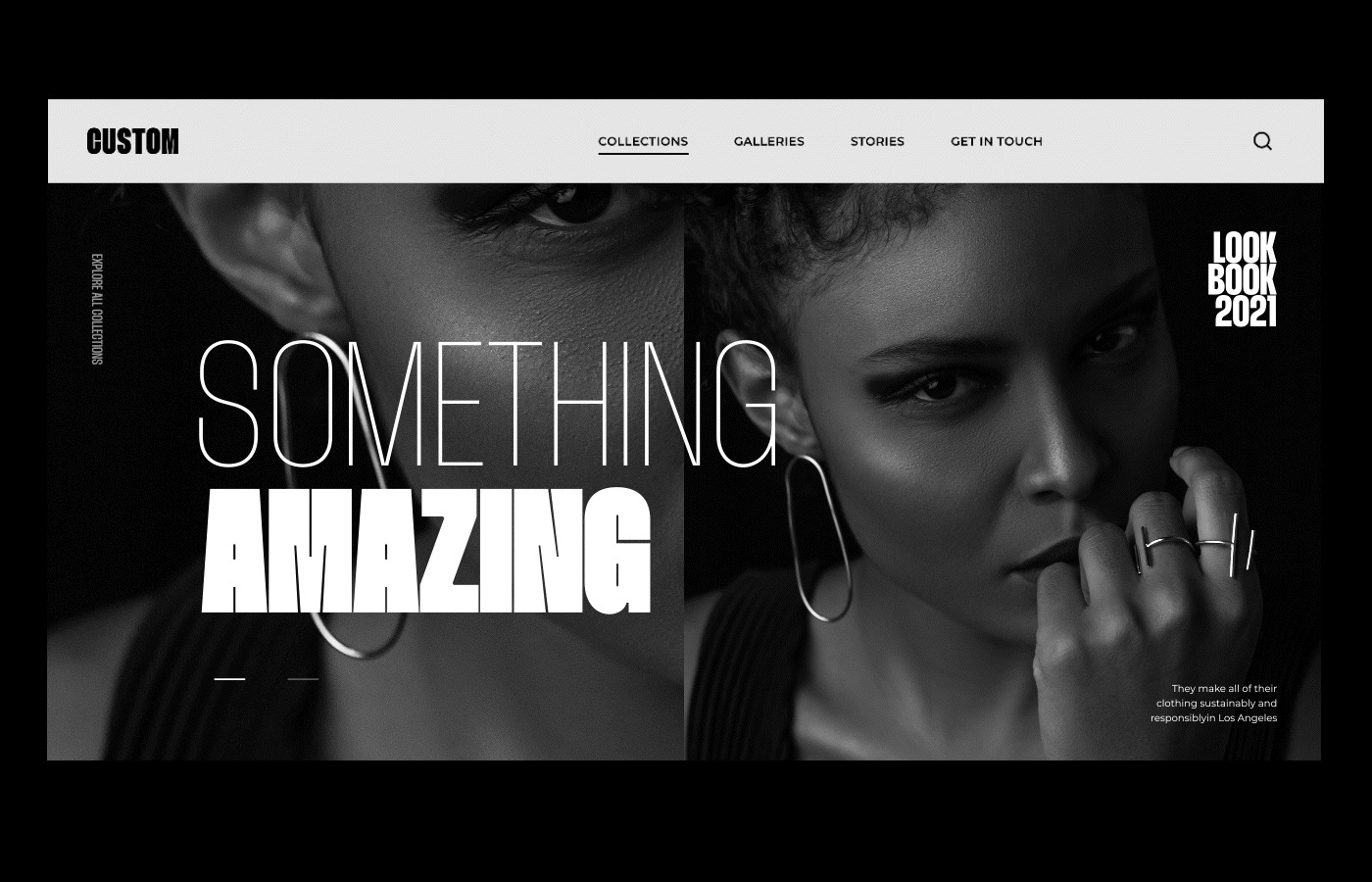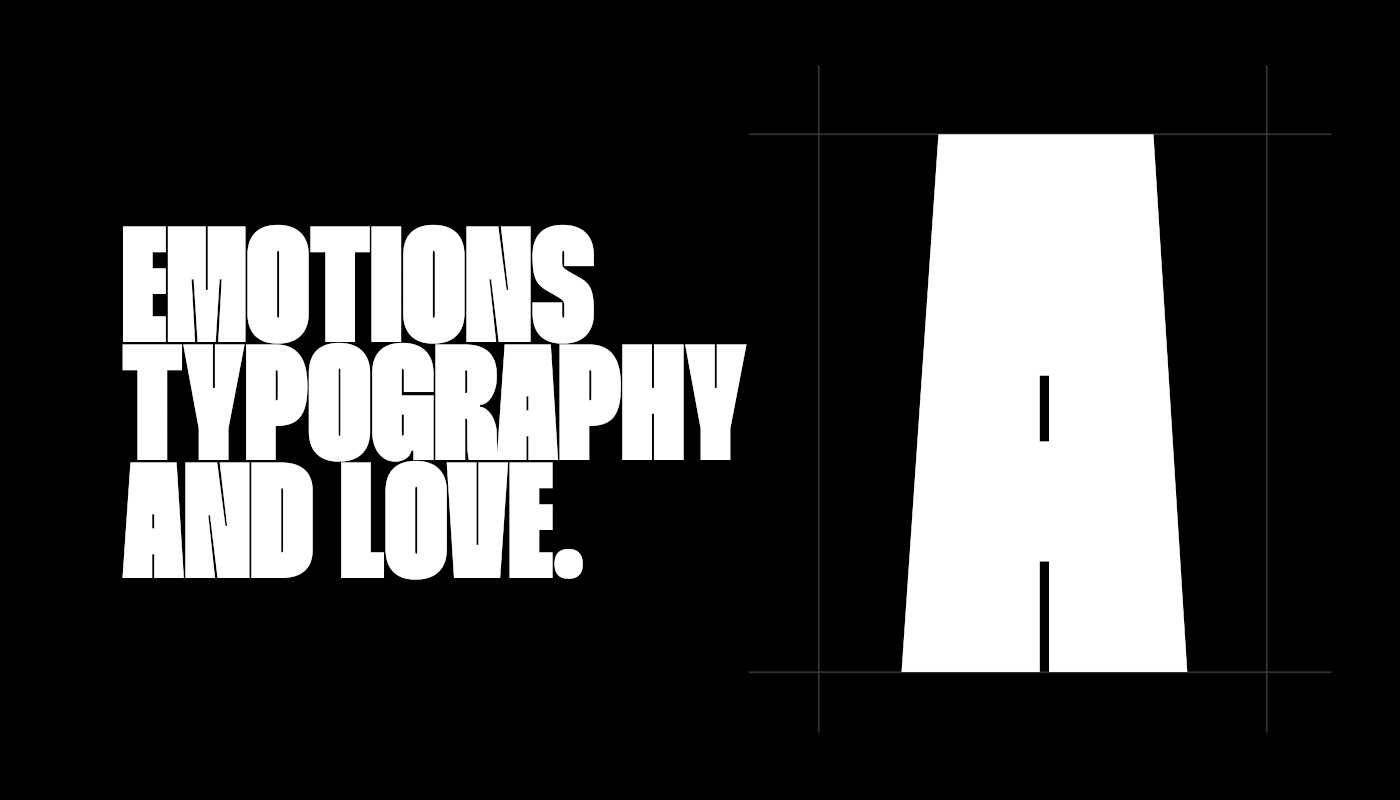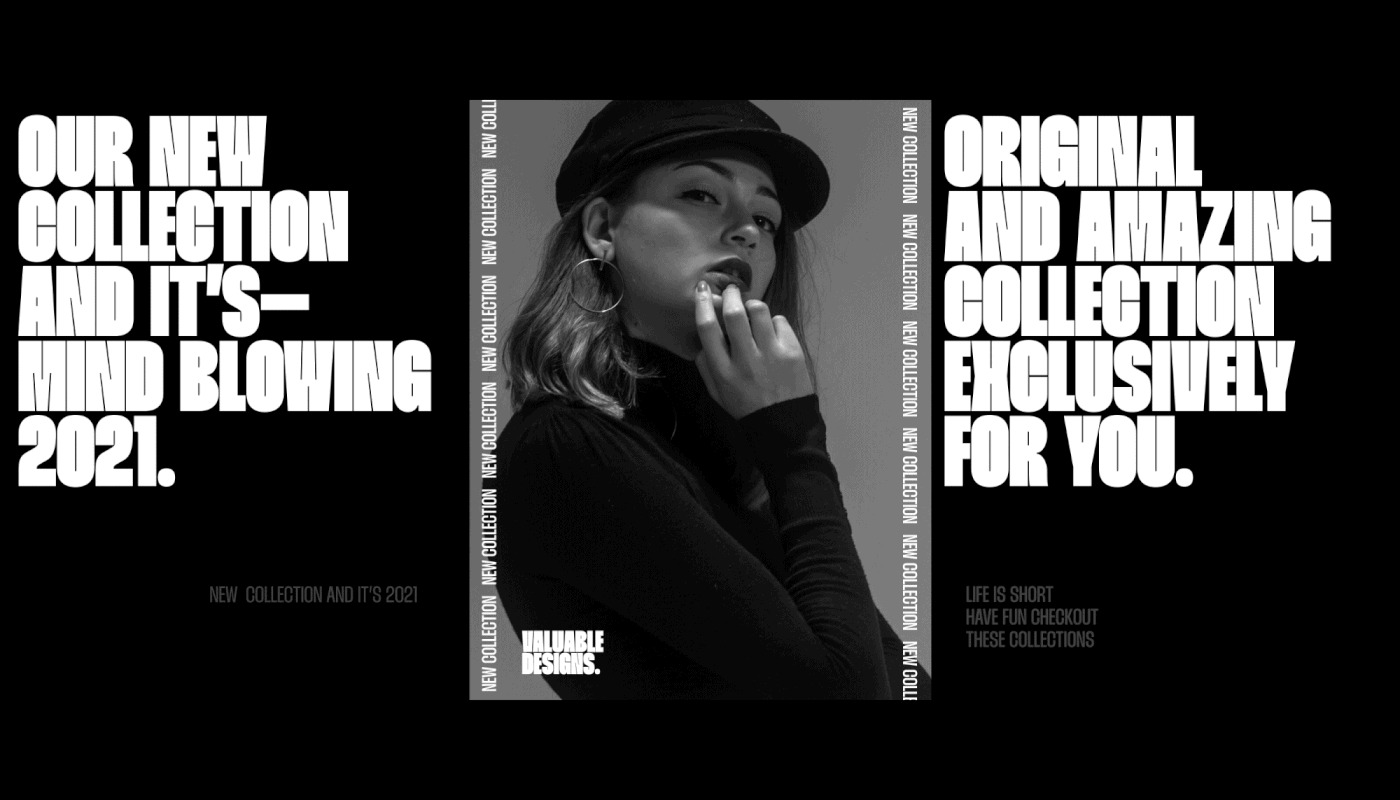
Thunder Sans Serif Font
This font is a condensed typefamily. It’s designed and shared by Rajesh Rajput. Having 18 weights including italic version, strong character, Sharp edges and proportional contrast. The typeface is versatile and can be successfully used in Branding, Posters, Magazines, Websites, Mobile Apps, etc.